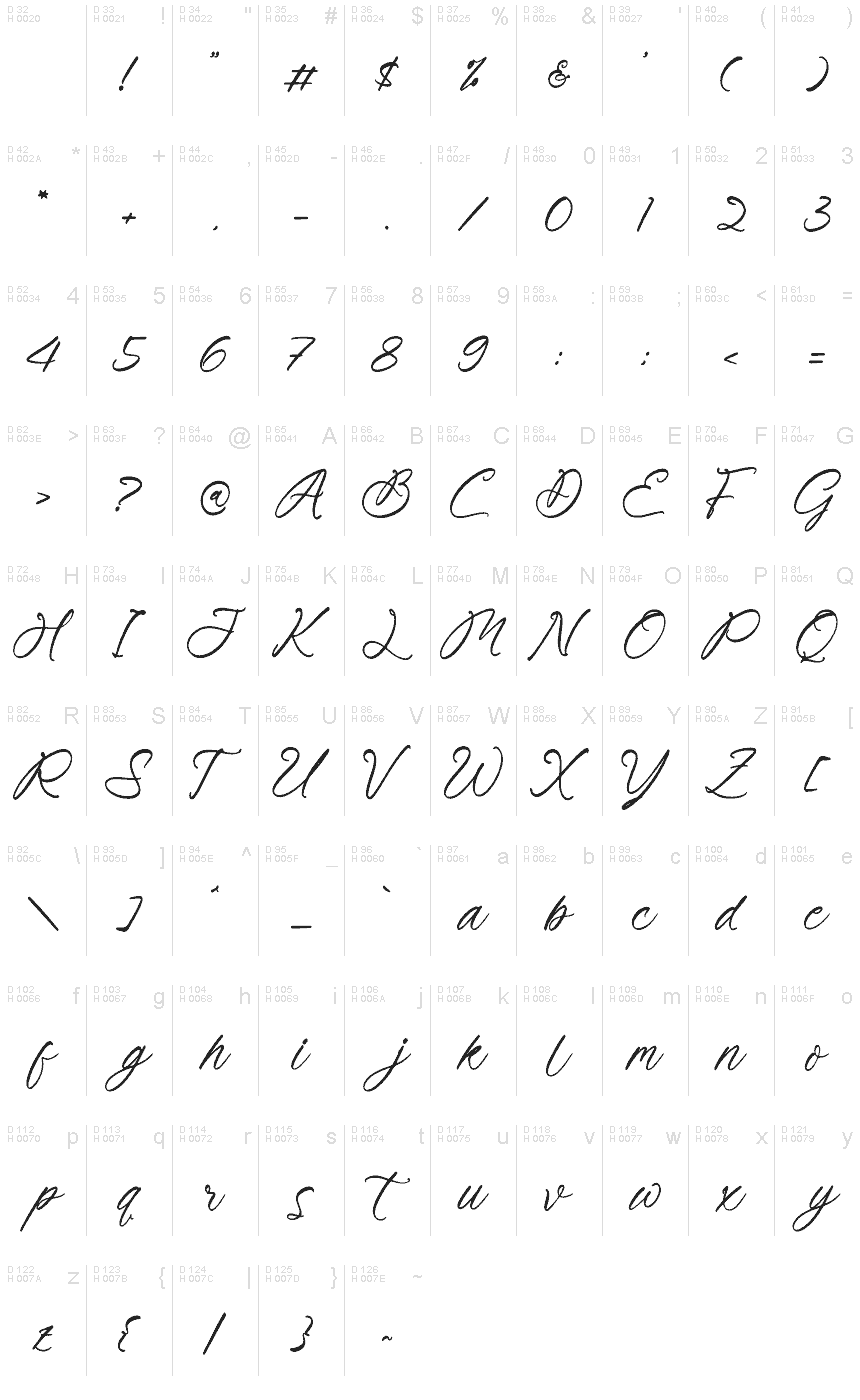
Brittney Morgareta font is a free calligraphy font created by Letterena Studios with its light strokes, elegant flowing style, and signature style appearance. Present in some letters, the decorative elements contribute to an overall sophisticated mood and attractive natural beauty of this typeface.
This lovely handwriting font is useful for invitations, thank you cards, and weddings as well as logos and branding projects. Use it for quotes in images or posts or use it more elaborately to design headlines for websites or articles.